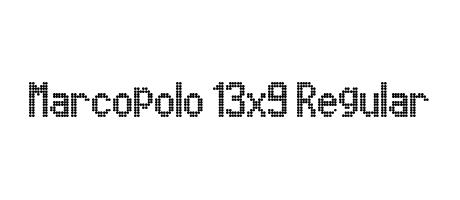
Marcopolo 13x9
By MelPurpleCrystal
Marcopolo 13x9 Regular is a font that evokes a retro digital aesthetic. Its blocky, pixelated characters suggest a vintage display or early computer graphics. The consistent width of each character contributes to its straightforward, almost mechanical feel. It’s a font that communicates simplicity and a touch of nostalgia.